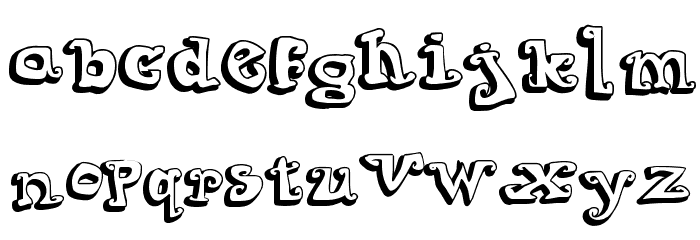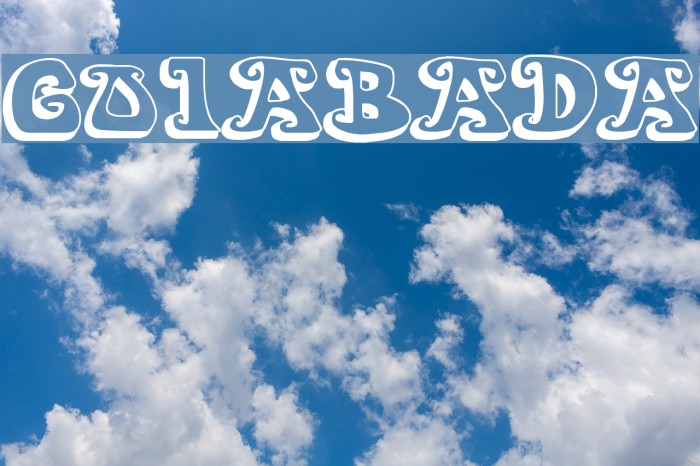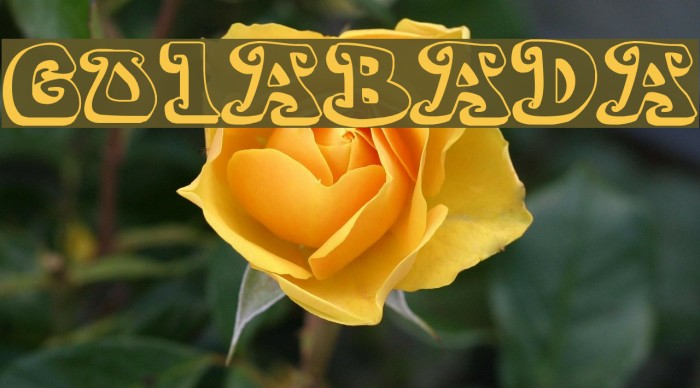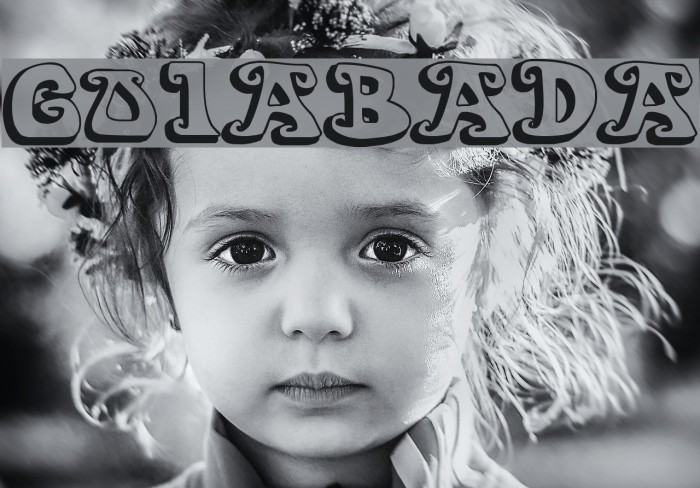
GOIABADA Font
This font features a bold and playful style with a distinct outline that gives each character a three-dimensional effect. The letters are curvy and whimsical, with exaggerated serifs and a unique flair that adds a touch of fun and creativity. The uppercase and lowercase letters maintain a consistent design, ensuring readability while still being visually striking. The numbers and special characters follow the same playful theme, making the font versatile for various uses. Its decorative nature makes it ideal for projects that require a standout, eye-catching typeface.
A bold, playful font with a three-dimensional outline and whimsical serifs.
- Proposed Projects: Ideal for children's book covers, playful branding, event posters, and creative invitations.
- Overall Style: Playful, Decorative